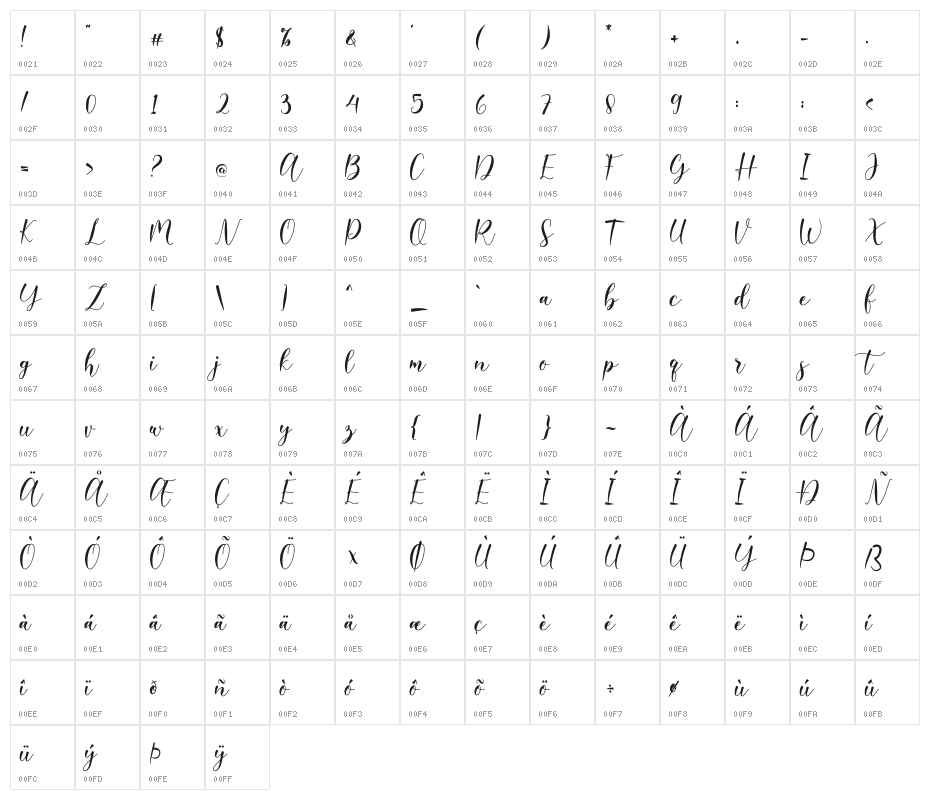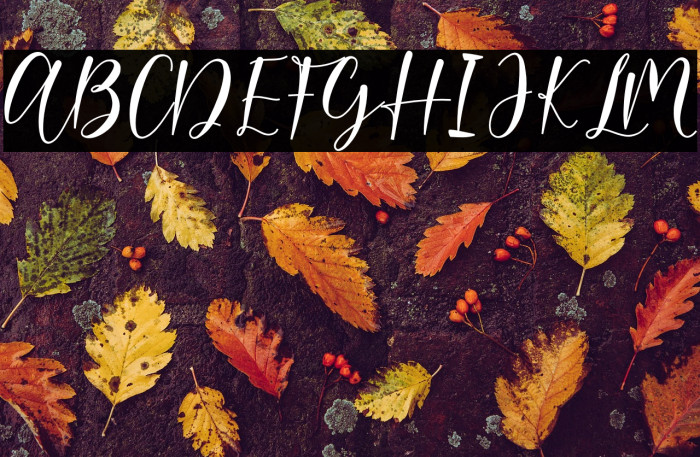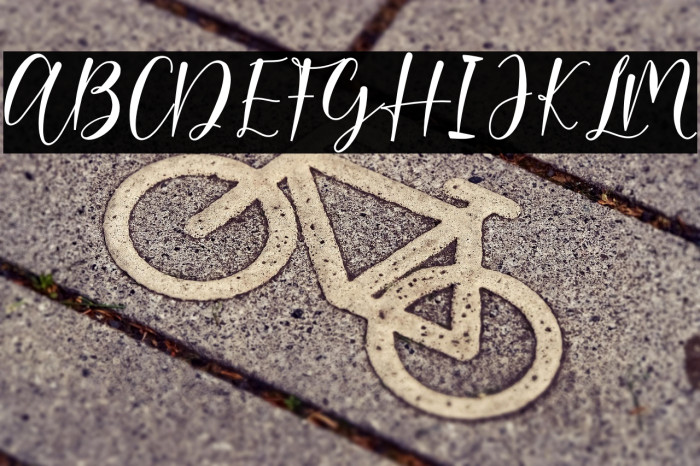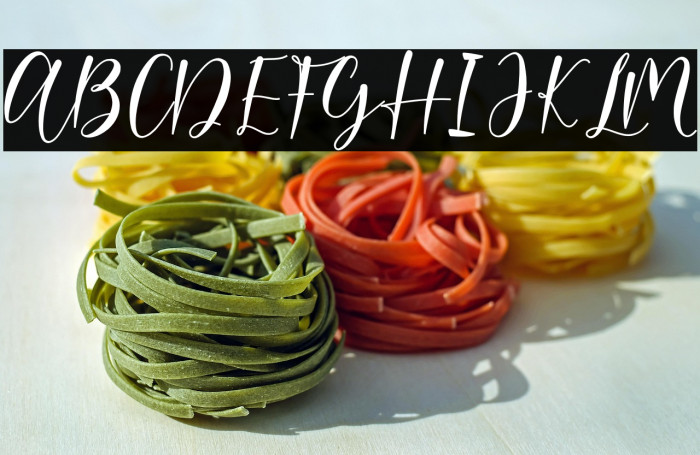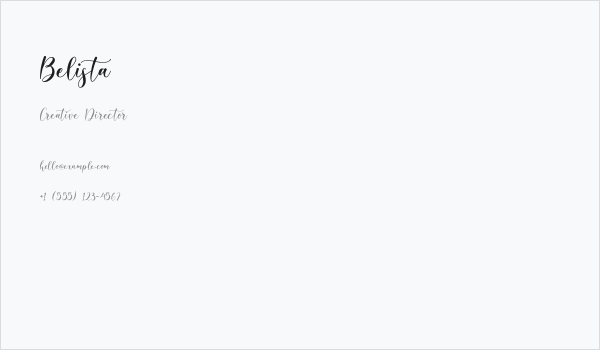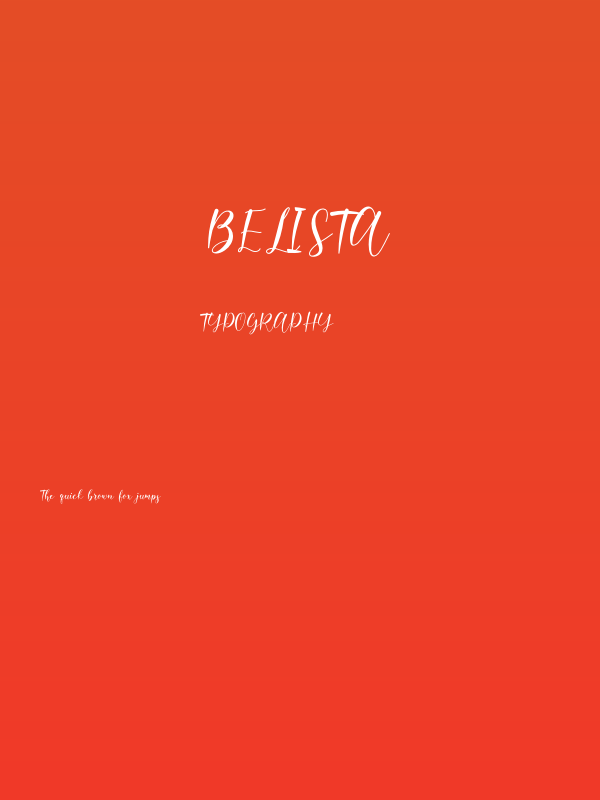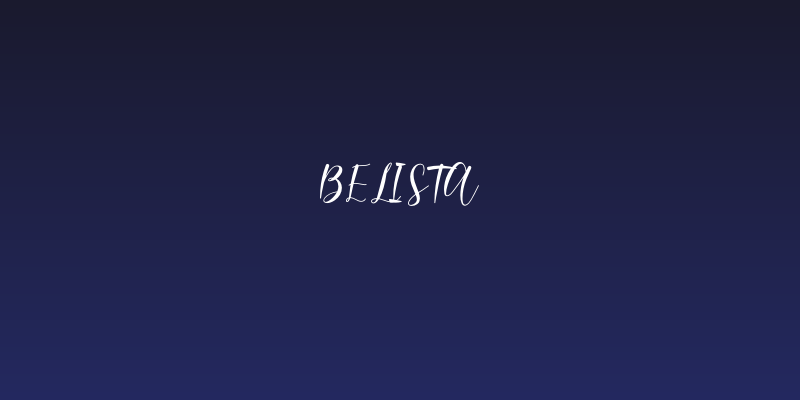
Belista Font
Belista Description
This font exudes elegance and fluidity, characterized by its cursive, handwritten style. The letters are gracefully connected, with smooth curves and loops that give it a sophisticated and artistic appearance. The uppercase letters are tall and slightly slanted, while the lowercase letters maintain a consistent flow, enhancing readability. The numerals and special characters are designed to match the overall aesthetic, ensuring a cohesive look across all text. This font is perfect for projects that require a personal touch, such as invitations, greeting cards, and branding materials.
| Overall Style | Elegant, Artistic |
| Use Case | Headlines, Invitations, Branding |
| Proposed Projects | Ideal for wedding invitations, greeting cards, personal branding, and artistic projects. |